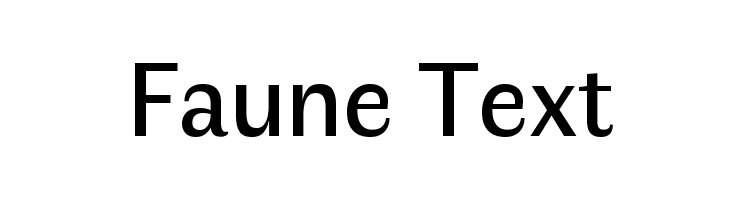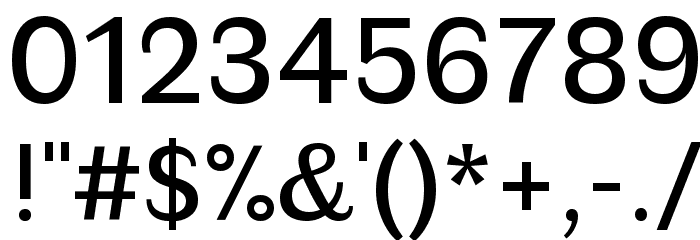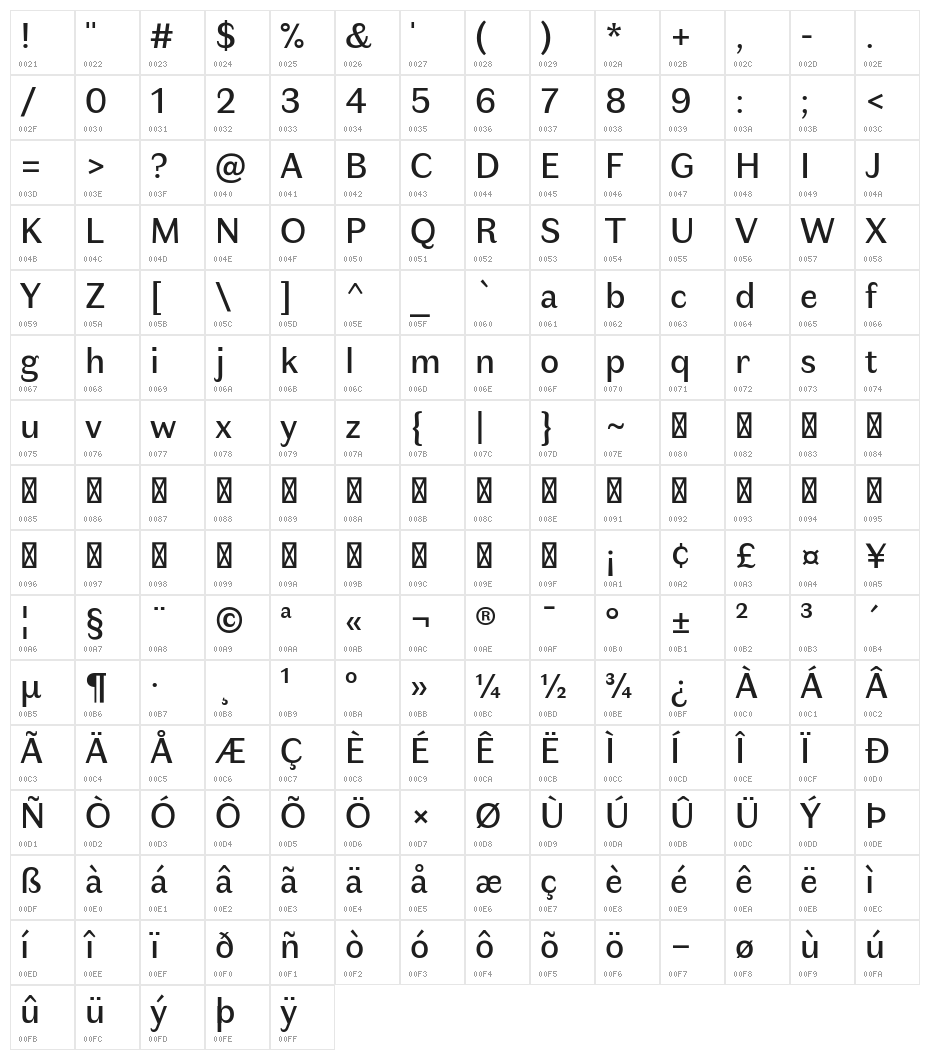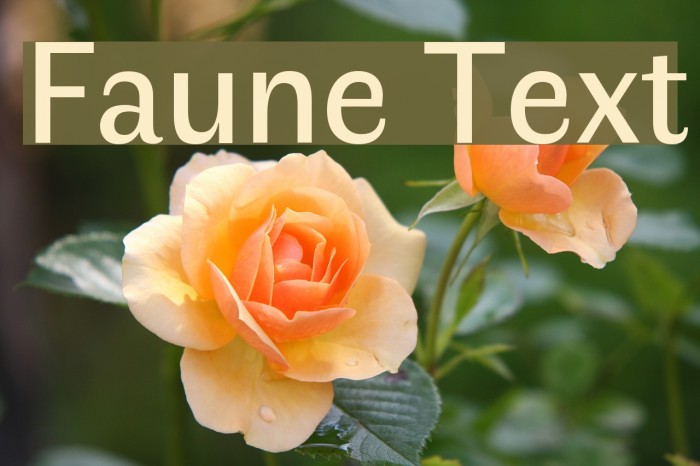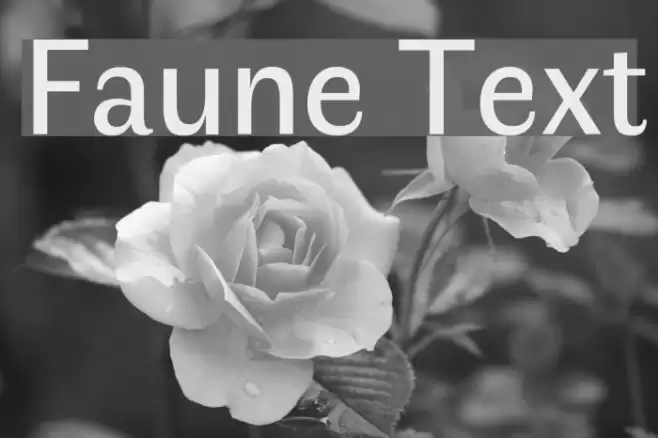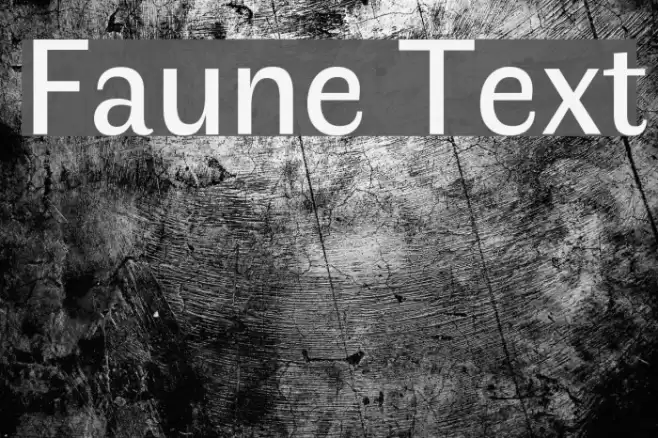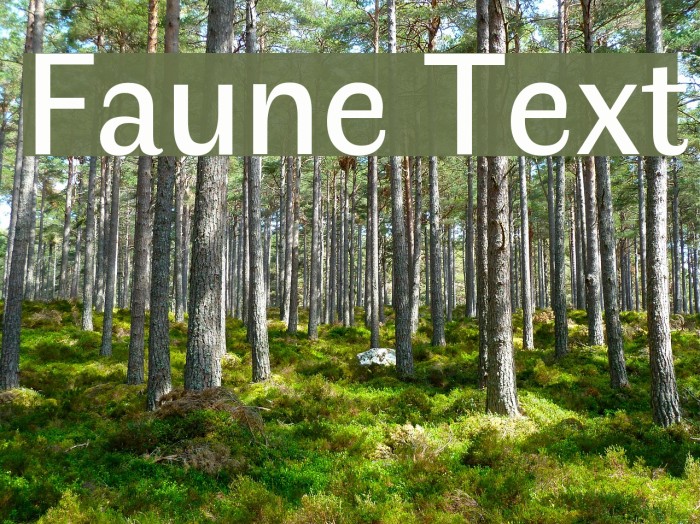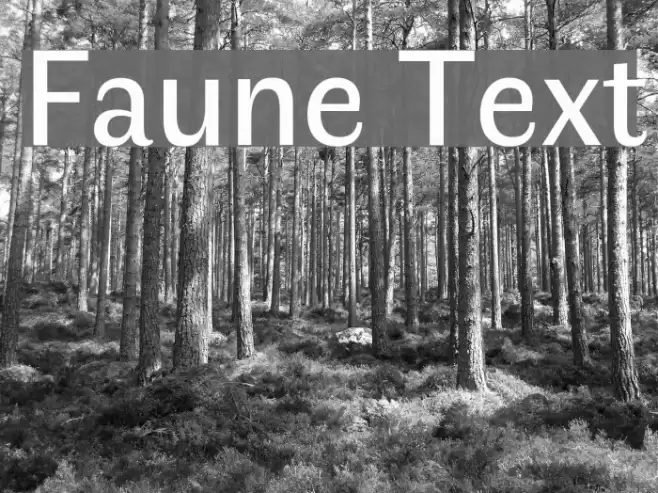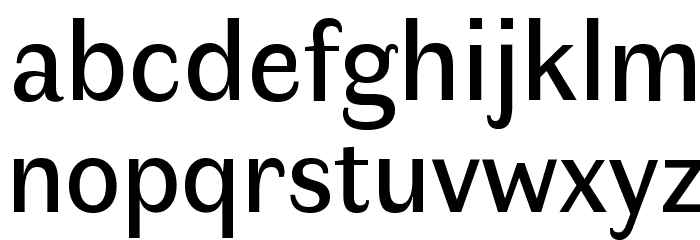
Faune Text Font
Faune Text Description
This font features a clean and modern sans-serif design, characterized by its simplicity and readability. The letterforms are well-balanced with a consistent stroke width, providing a harmonious and professional appearance. The uppercase letters are bold and assertive, while the lowercase letters maintain a friendly and approachable style. The numerals are clear and distinct, ensuring easy readability in various contexts. Special characters are well-integrated, maintaining the overall aesthetic of the font. Its versatility makes it suitable for a wide range of applications, from digital to print media.
| Proposed Projects | Ideal for corporate branding, website design, editorial layouts, and advertising materials. |